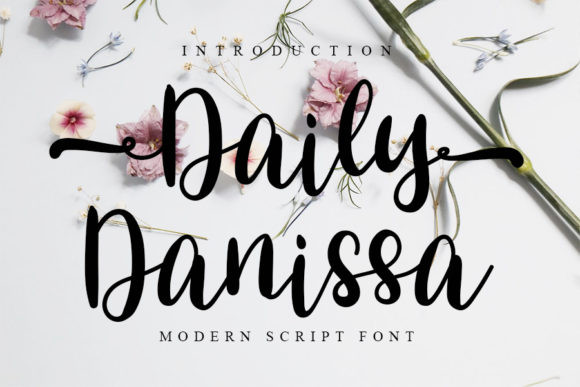
Daily Danissa Font
Daily Danissa FontDaily Danissa is a bold and elegant script font. Daily Danissa is the perfect font for making beautiful and great designs!